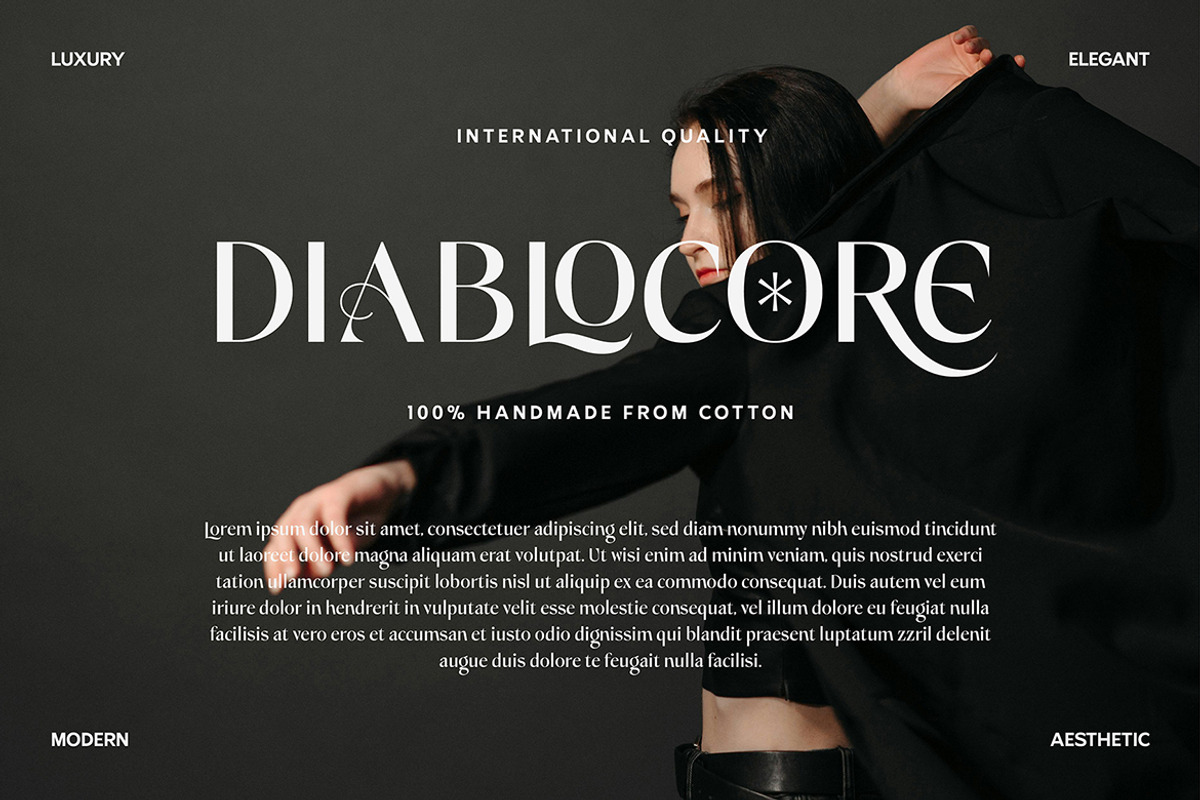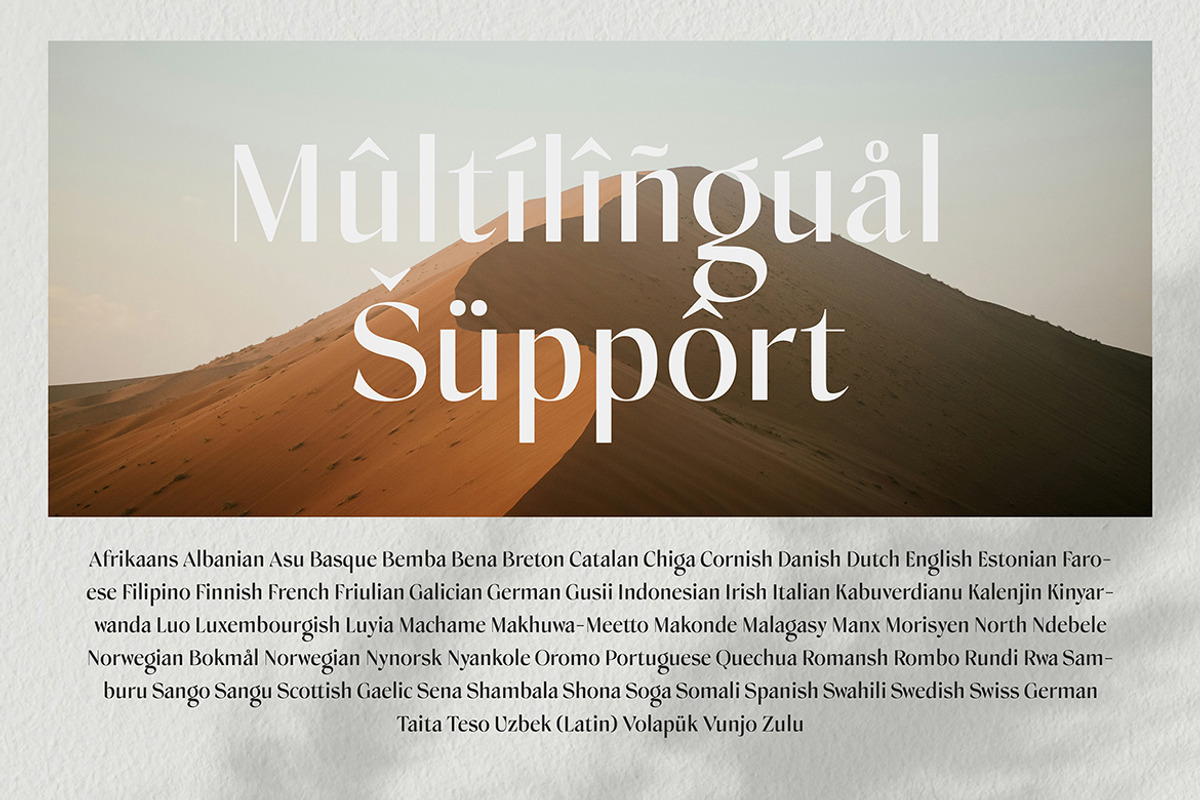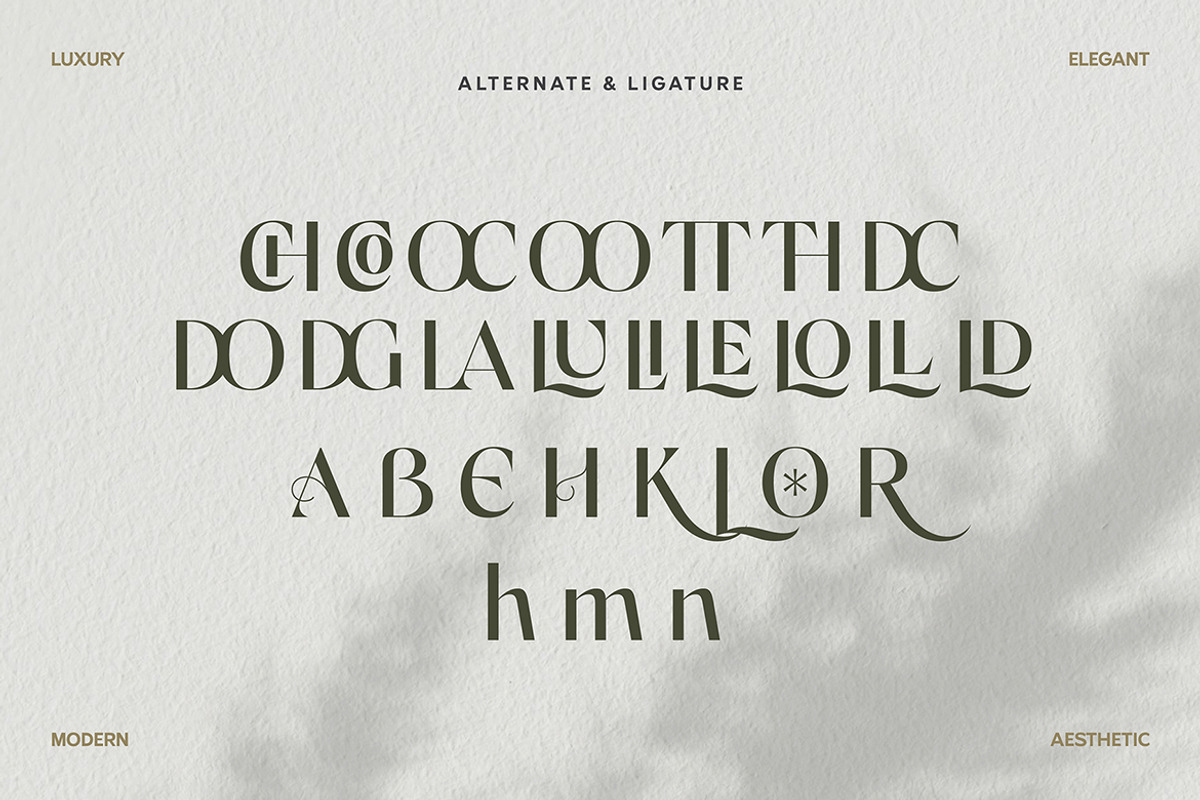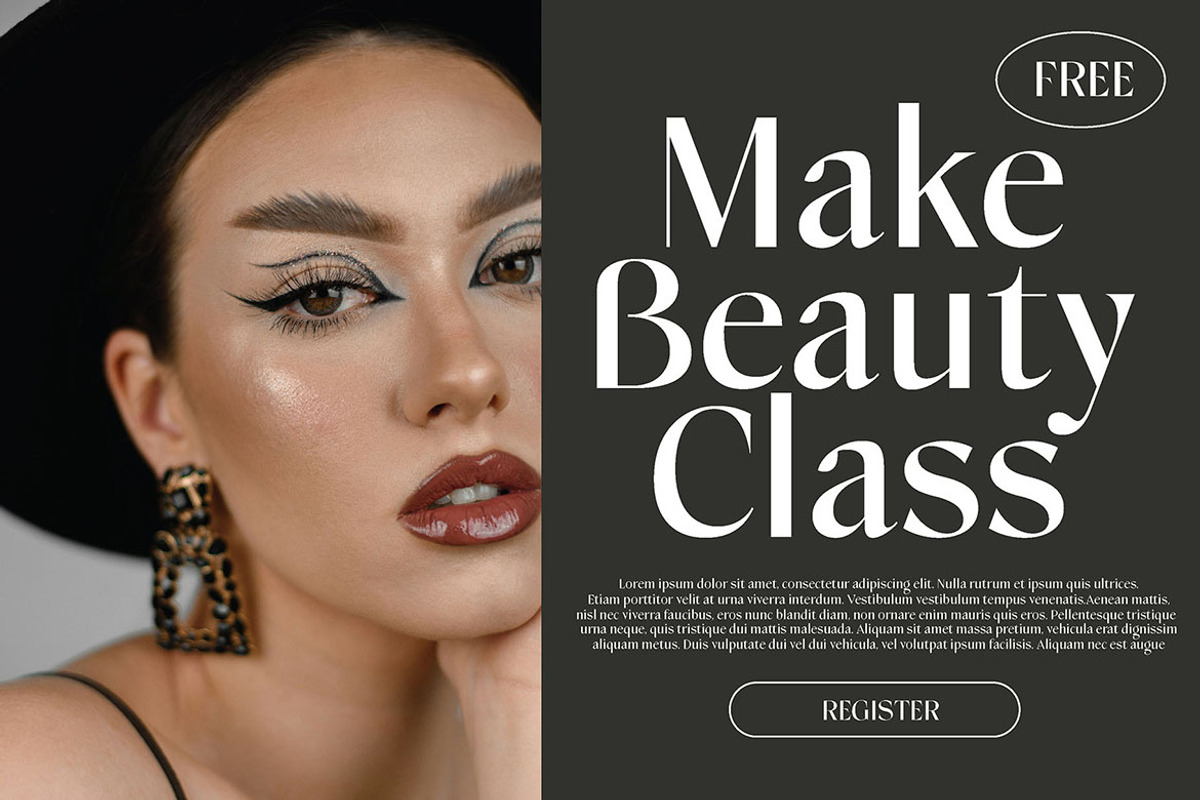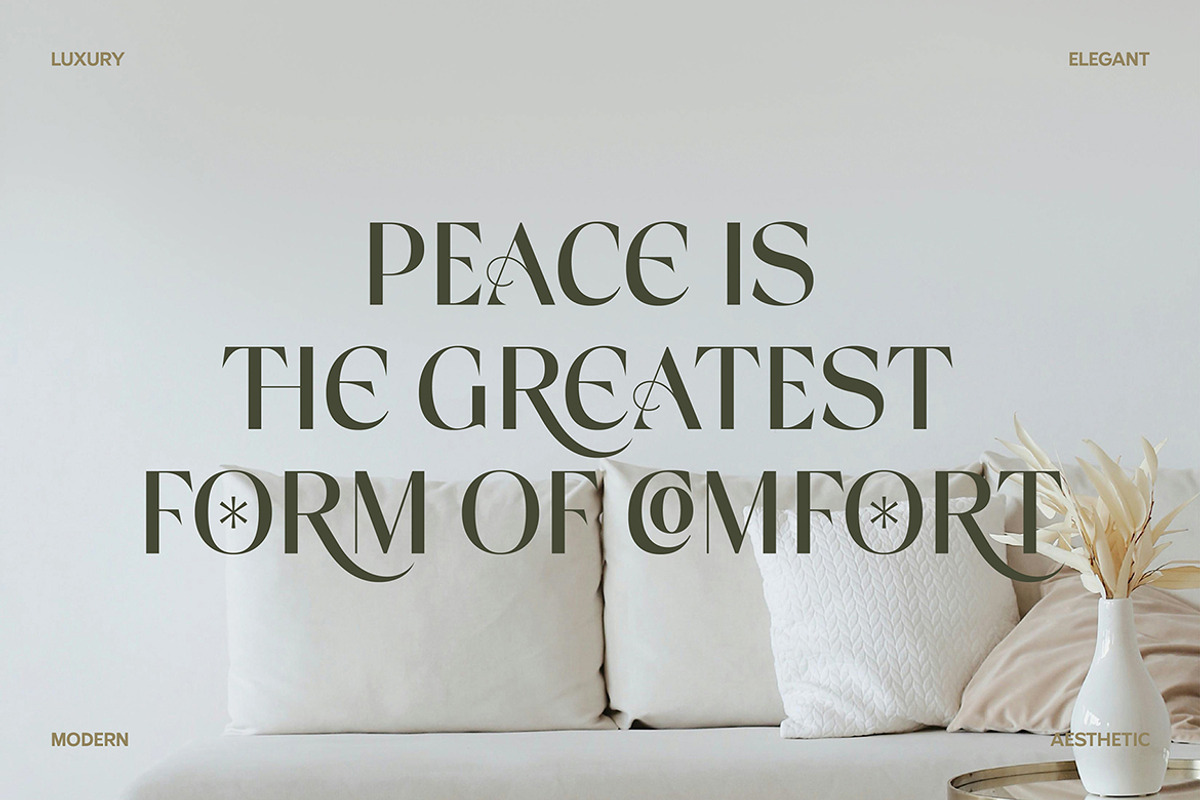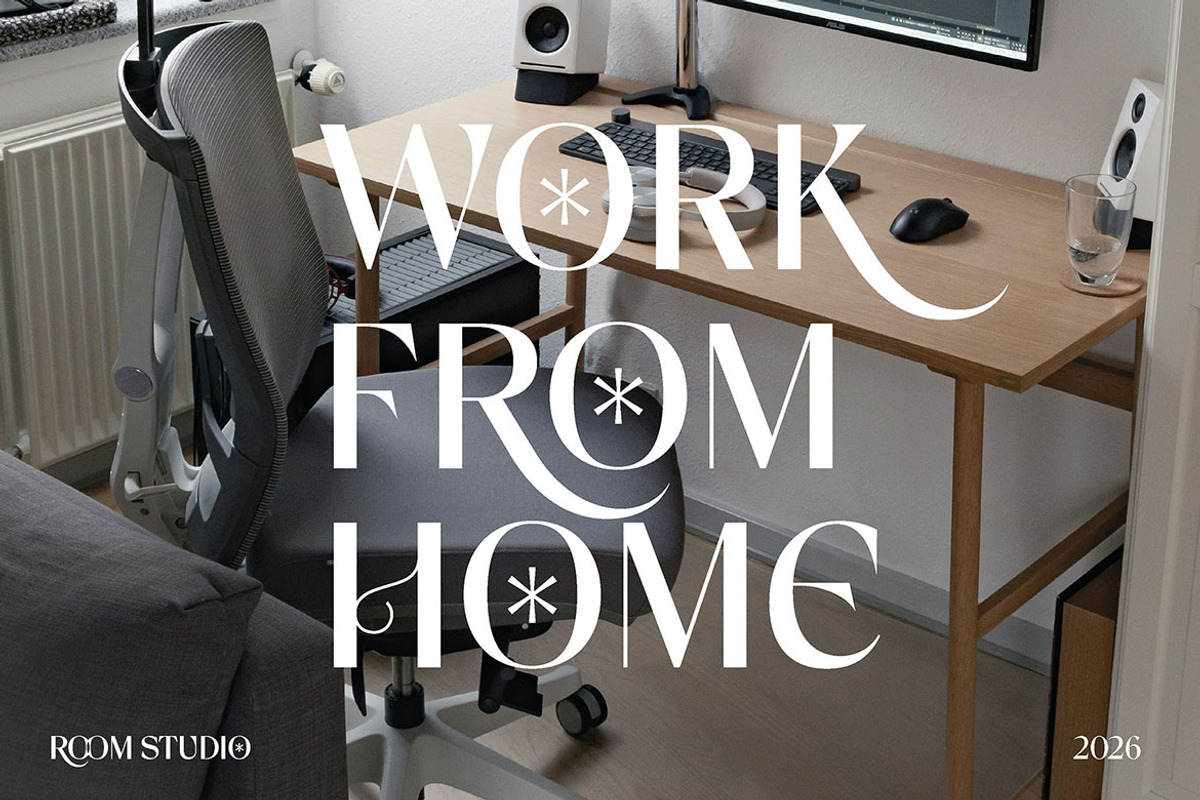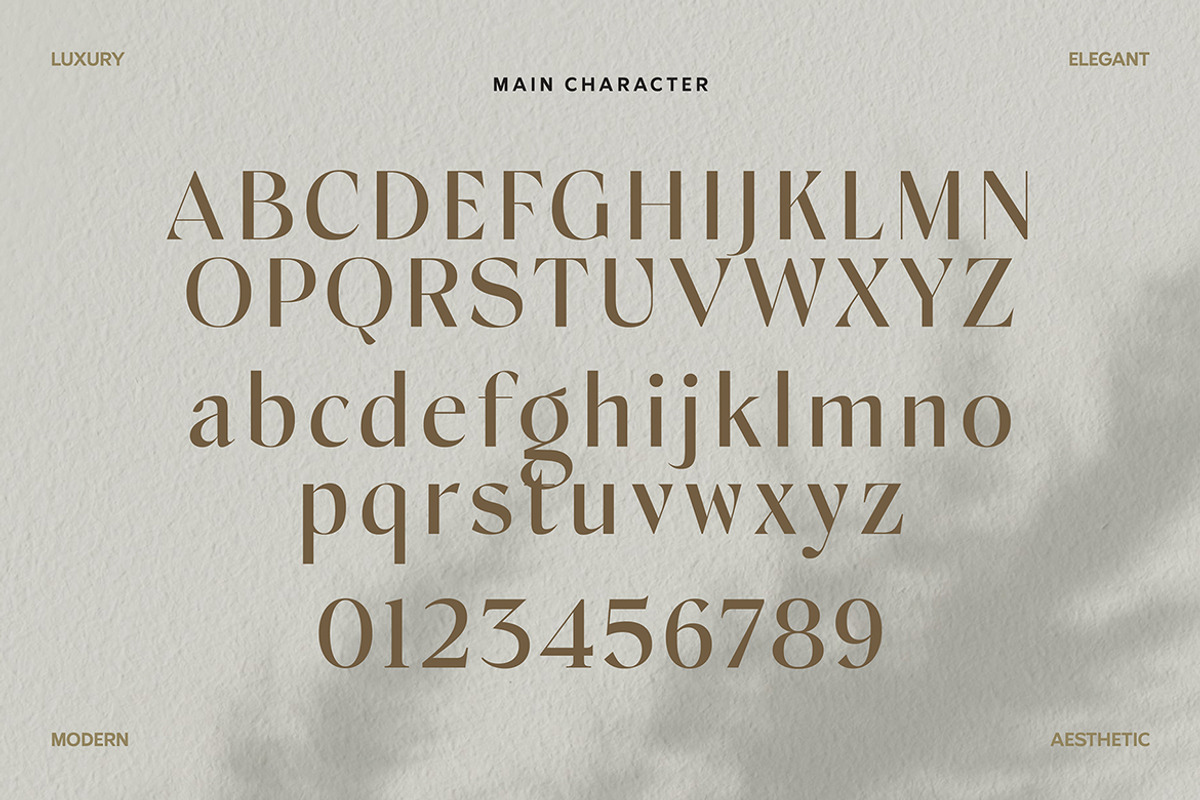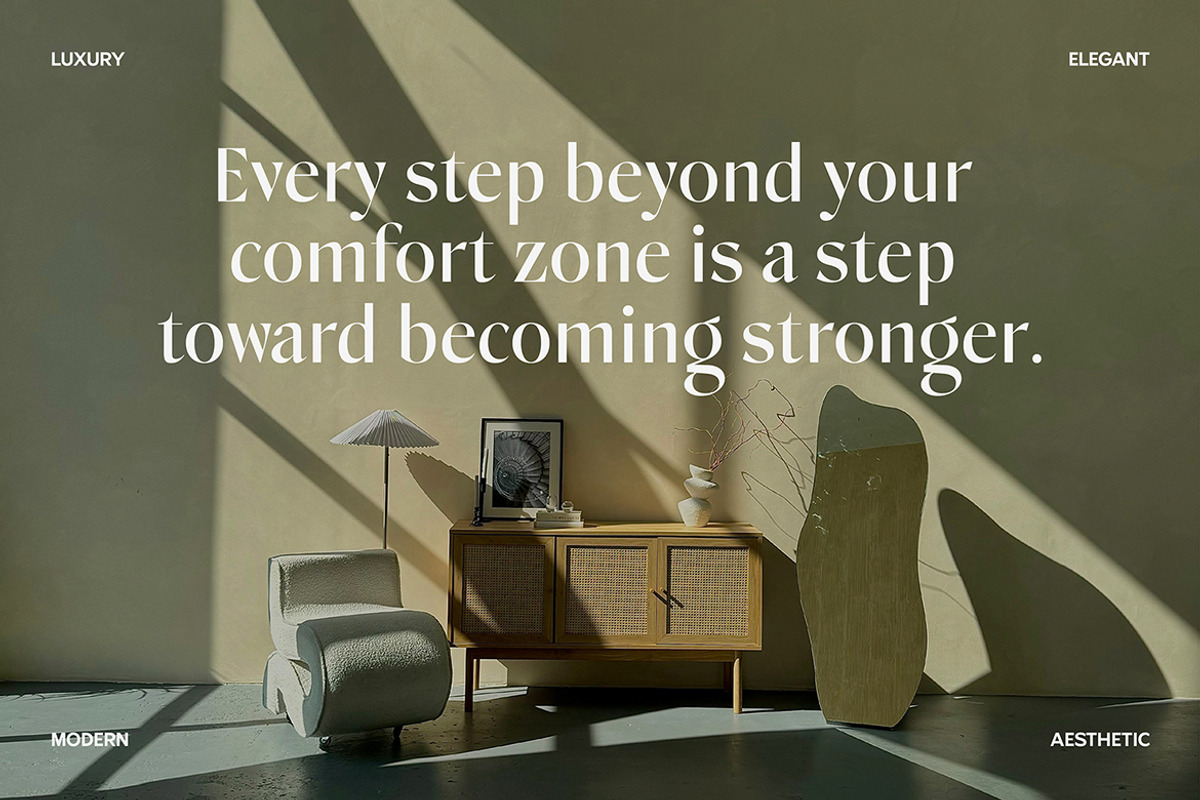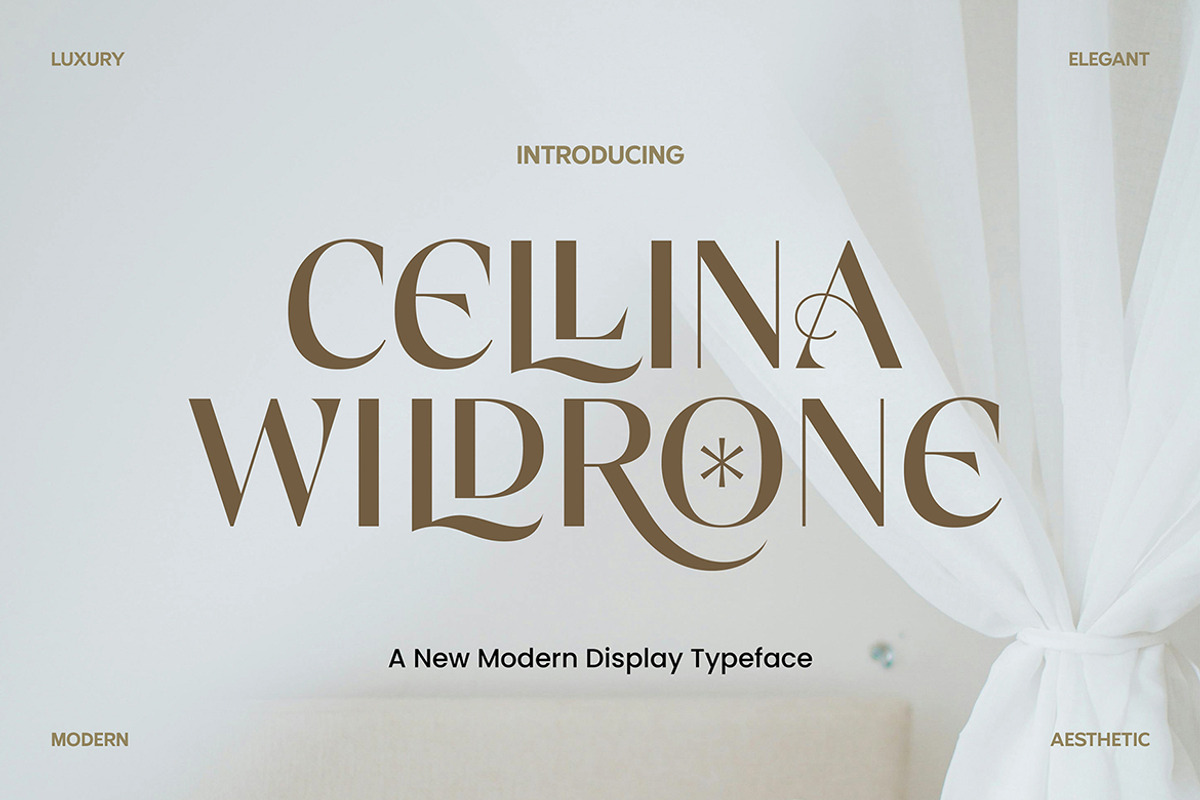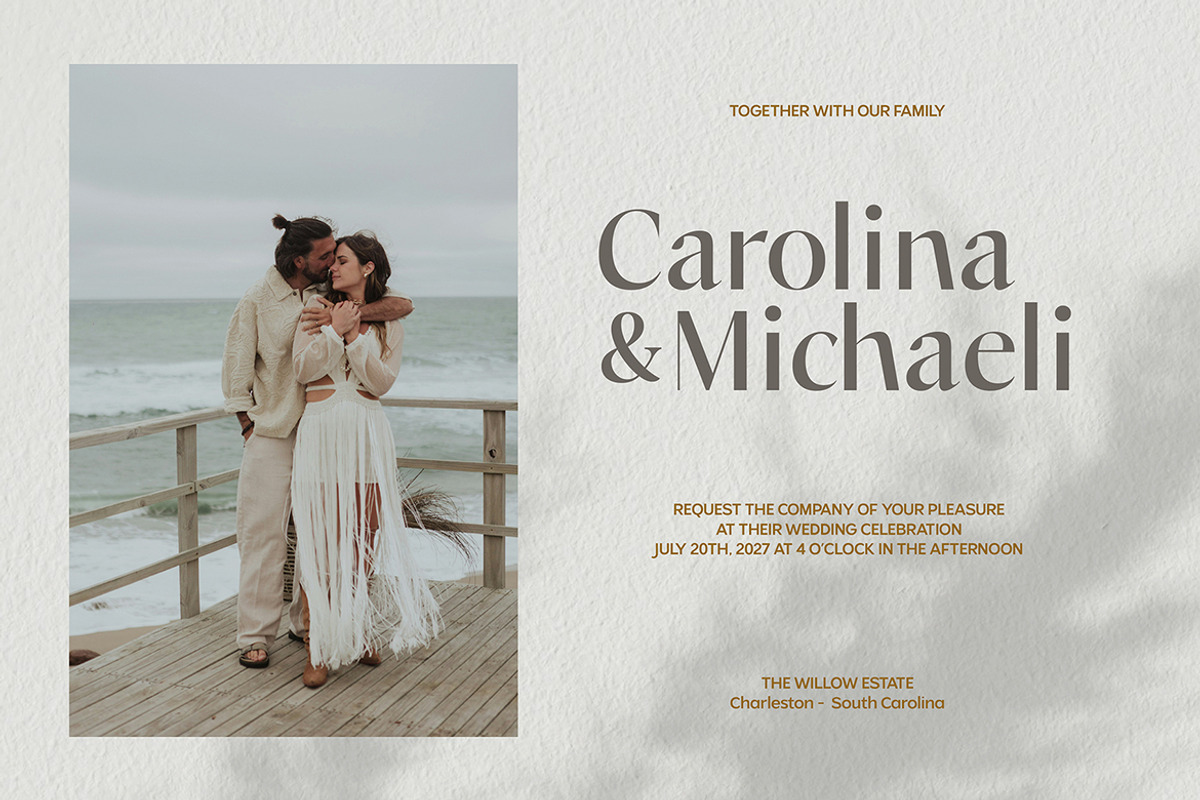
Cellina Wildrone Display
Cellina Wildrone Display Font that we created special for Luxury and Fashion branding needs, with extra characters alternate in unique shape will be ready to add value of your brand. It so nice to leverage designer or product owner that need solutions to make their design look more classy and modern. And specially for this font, We prepared any alternate characters to help you create unlimited variations for your creative needs.
Cellina Wildrone Display :
Uppercase & Lowercase International Languange & Symbols Support Punctuation & Number PUA Unicode Range Standard Ligatures Discretionary Ligatures Stylistic Alternates Stylistic Set.